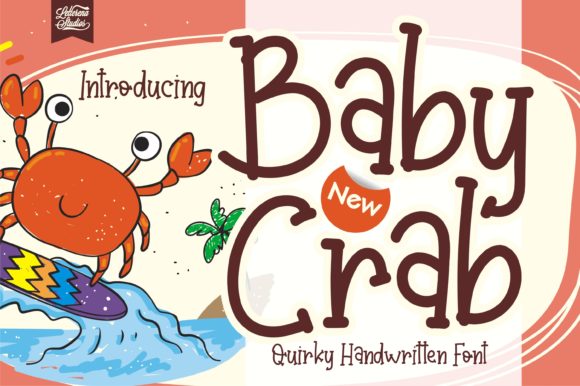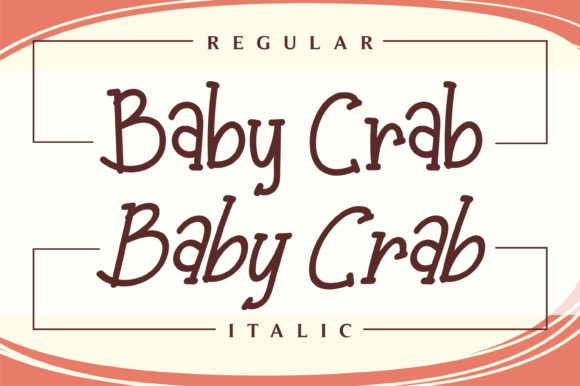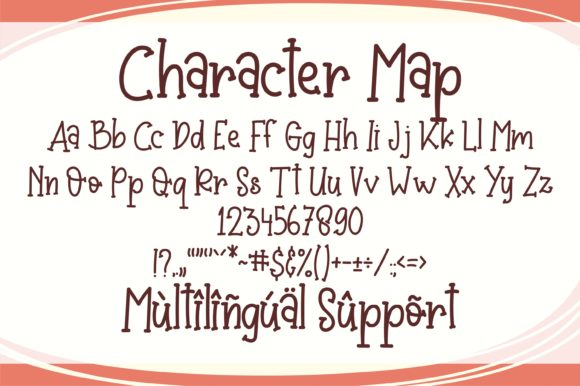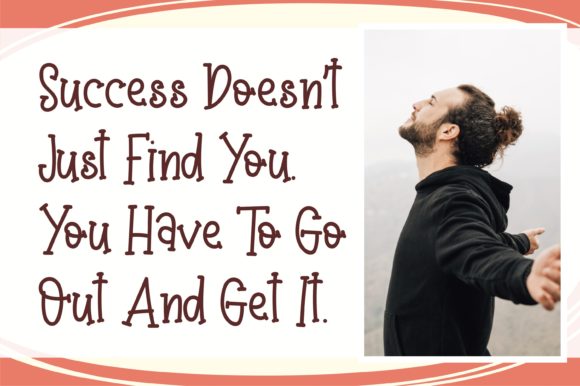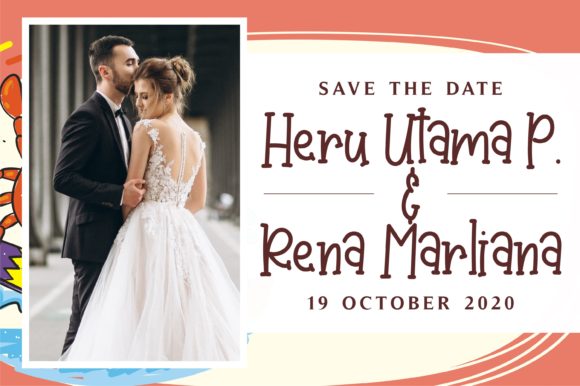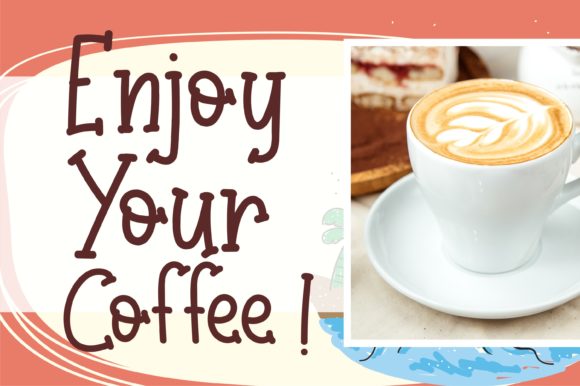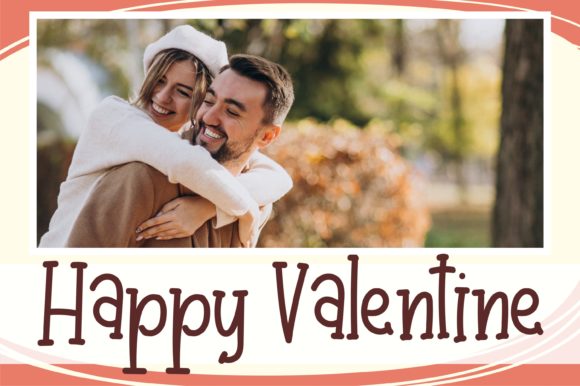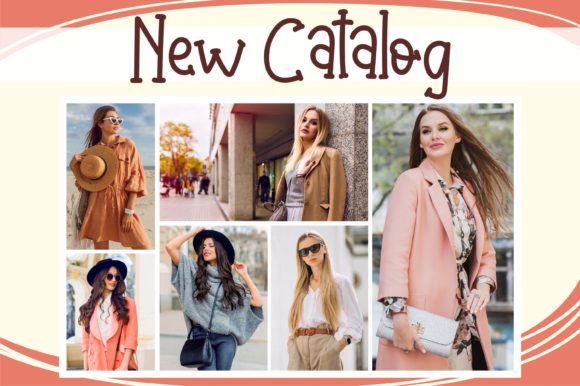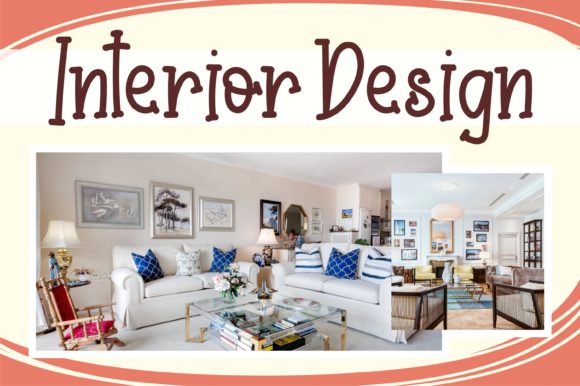
Baby Crab Font
Baby Crab is a quirky handwritten font with a unique style. Fall in love with its playful look & feel! Use this gorgeous font to bring any DIY project to life!